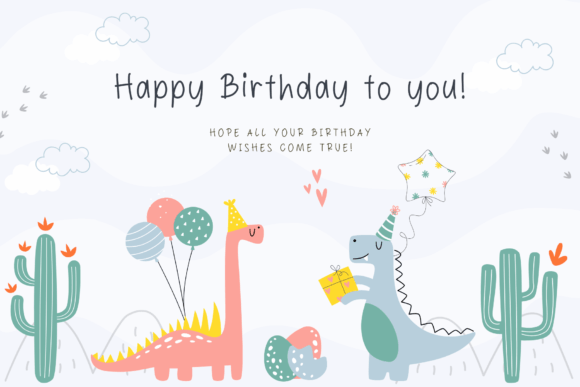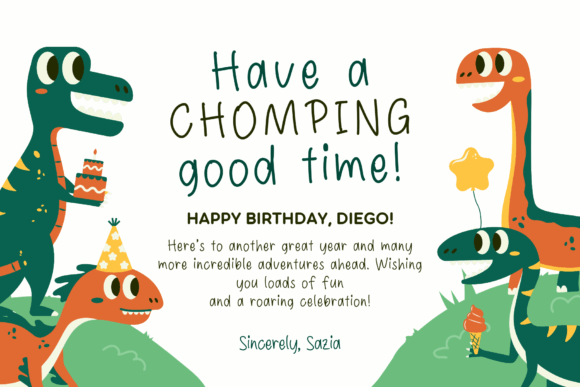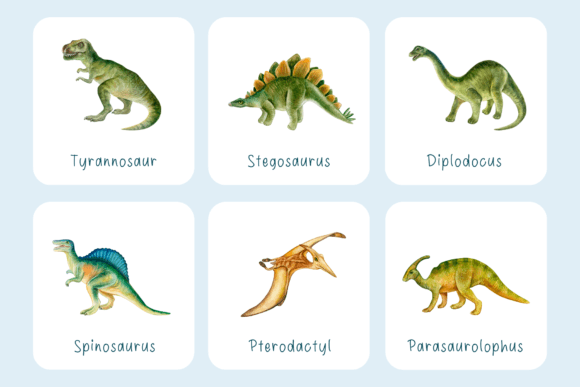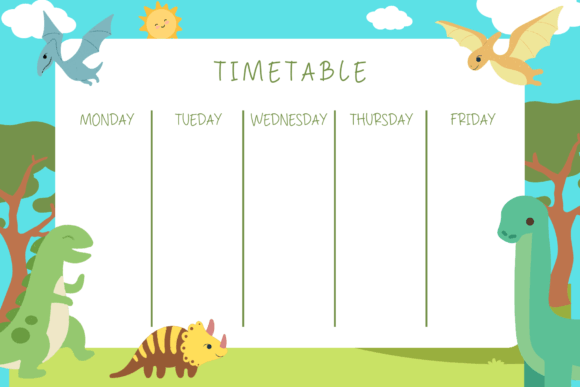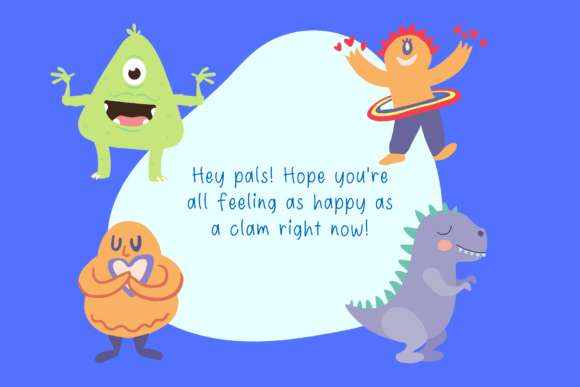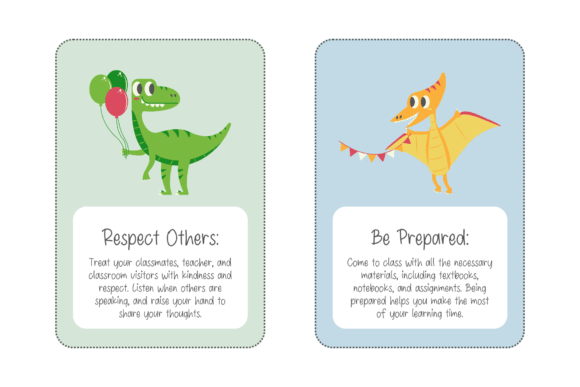
Introducing Hello Dino Font: The Ultimate Typeface for Whimsy and Wonder
Are you tired of using the same old fonts in your design projects? Do you want to add a touch of magic and playfulness to your creations? Look no further than Hello Dino Font, the charming and vibrant typeface that’s sure to delight designers, crafters, and anyone looking to add a dash of whimsy to their work.
The Embodiment of Charm and Quirkiness
Hello Dino Font is more than just a font – it’s an experience. With its endearing and sprightly appeal, this typeface is the perfect match for projects related to children, cartoons, and anything that requires a sense of freshness and fun. Whether you’re designing a logo, creating a children’s book, or crafting a playful advertisement, Hello Dino Font is sure to bring a smile to your audience’s faces.
What Makes Hello Dino Font So Special?
So, what sets Hello Dino Font apart from other typefaces? Here are just a few reasons why this font is a must-have for designers and crafters:
• Unique and Quirky Design: Hello Dino Font features a one-of-a-kind design that’s both playful and charming. Its quirky and irregular shapes make it perfect for projects that require a touch of whimsy and personality.
• Vibrant and Colorful: This font is not just a simple typeface – it’s an invitation to explore a world of vibrant colors and playful patterns. Use it to add a pop of color and energy to your designs.
• Kid-Friendly: Hello Dino Font is perfect for projects aimed at children, from children’s books and educational materials to playful advertisements and kid-friendly branding.
• Easy to Read: Despite its playful design, Hello Dino Font is surprisingly easy to read, making it perfect for both digital and print projects.
How to Use Hello Dino Font in Your Designs
Now that you’re excited about Hello Dino Font, let’s talk about how to incorporate it into your designs. Here are a few ideas to get you started:
• Children’s Books and Educational Materials: Use Hello Dino Font to create engaging and interactive children’s books, educational materials, and activity sheets.
• Playful Advertisements: Add a touch of whimsy to your advertisements with Hello Dino Font. Perfect for kid-friendly products or services, this font is sure to grab attention and bring a smile to your audience’s faces.
• Branding and Logo Design: Use Hello Dino Font to create a unique and memorable brand identity. Perfect for businesses that cater to children or want to convey a sense of playfulness.
• Crafting and DIY Projects: Add a personal touch to your crafting and DIY projects with Hello Dino Font. Use it to create custom signs, decorations, and other handmade items.
Why Designers and Crafters Love Hello Dino Font
So, why do designers and crafters love Hello Dino Font? Here are just a few reasons:
• High-Quality Design: This font is designed with high-quality and precision in mind, ensuring that it looks great in any design project.
In conclusion, Hello Dino Font is a must-have for designers, crafters, and anyone looking to add a touch of whimsy and playfulness to their work. With its unique and quirky design, vibrant colors, and kid-friendly appeal, this font is perfect for a wide range of projects. Don’t miss the chance to experience the playful magic of Hello Dino Font – add it to your stylistic repertoire today!